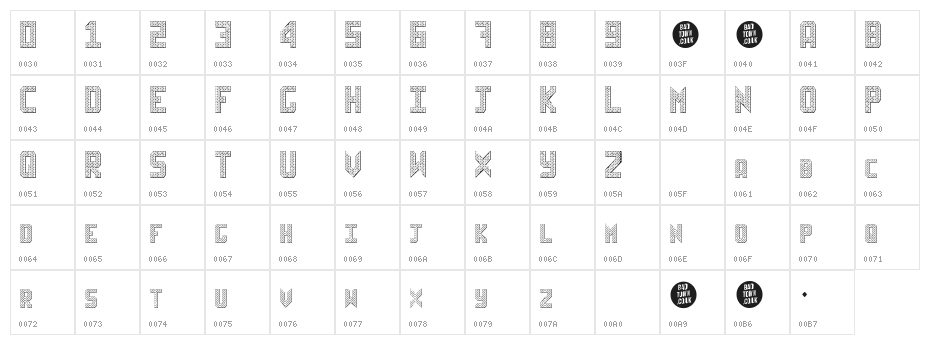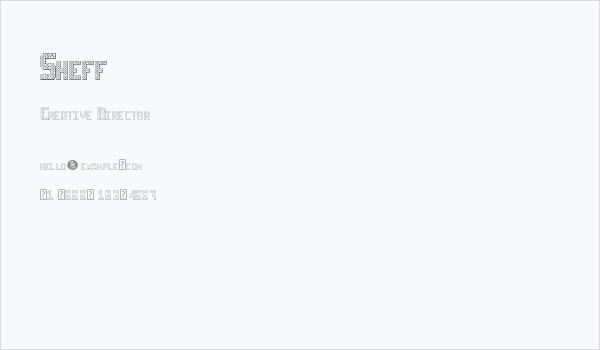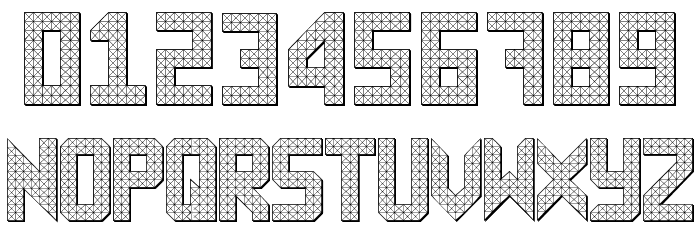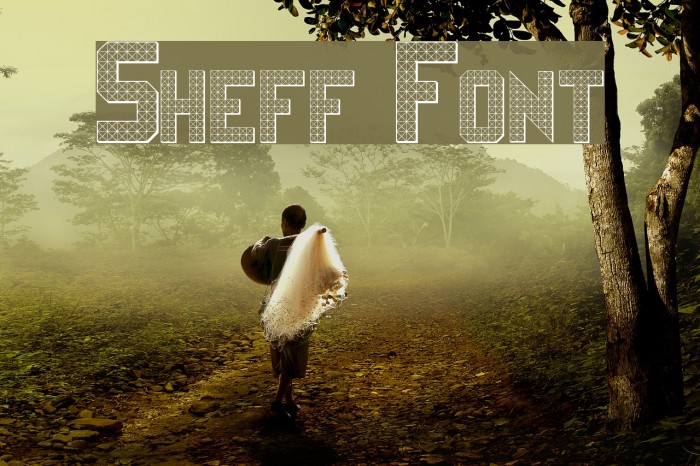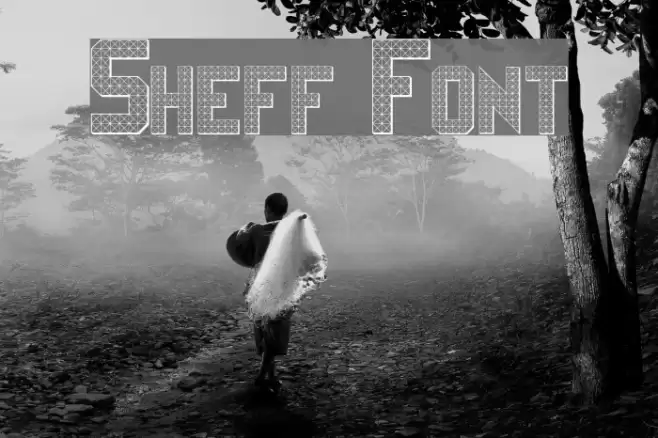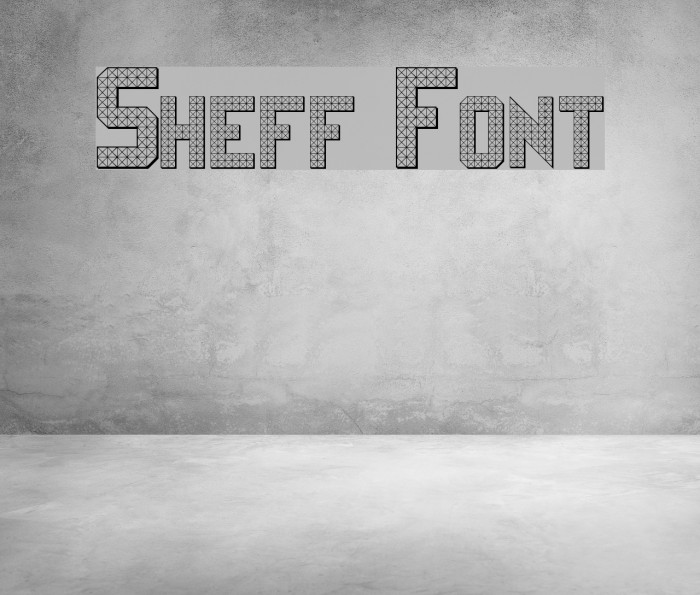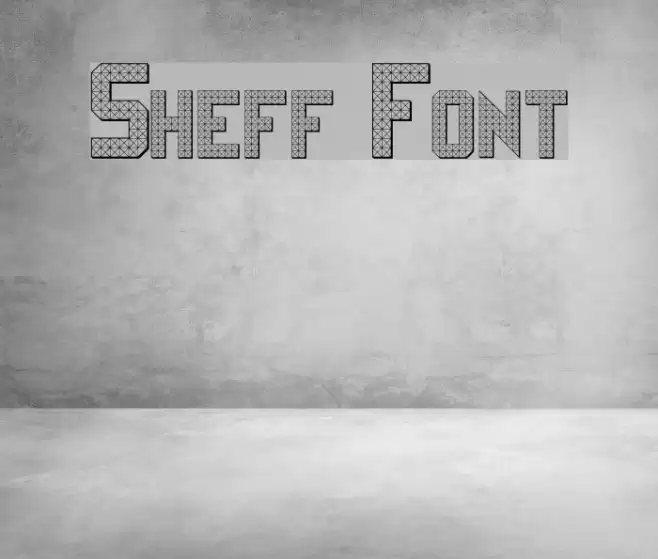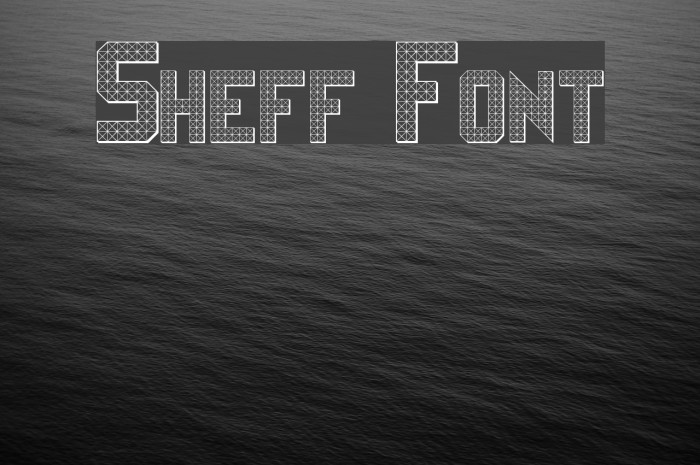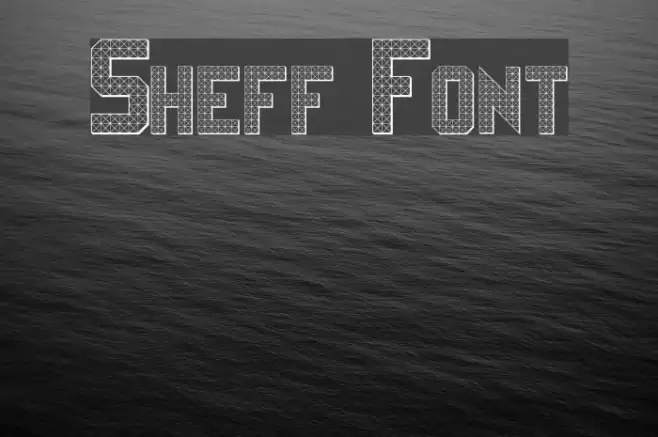
Sheff Font
Sheff Description
This font features a unique geometric pattern within each character, creating a visually striking and modern appearance. The letters are constructed with a series of interconnected triangles, giving them a textured and intricate look. The uppercase and lowercase letters, as well as the numbers, maintain a consistent design, ensuring uniformity across all characters. The font's bold and decorative style makes it stand out, while the geometric pattern adds a layer of complexity and interest. This design is perfect for projects that require a modern and eye-catching typeface.
| Proposed Projects | Ideal for branding, posters, and digital media where a modern and distinctive look is desired. |